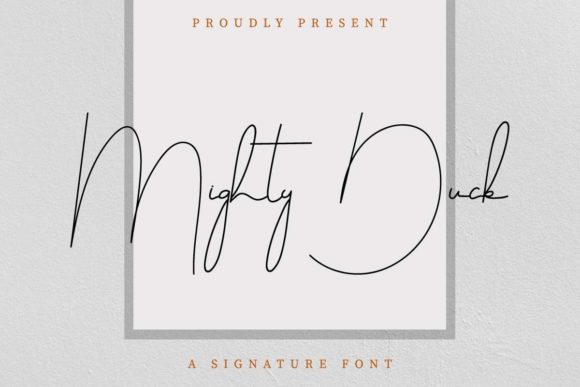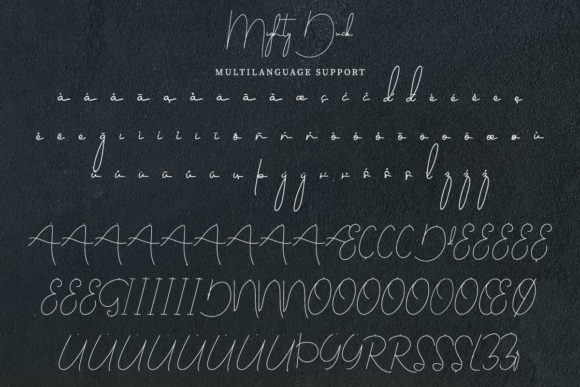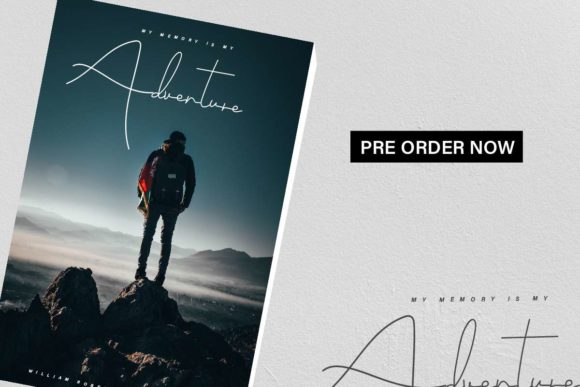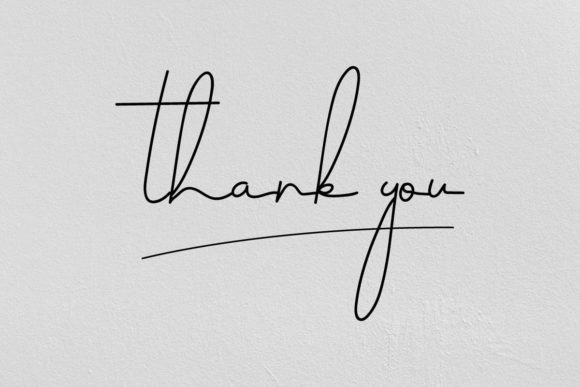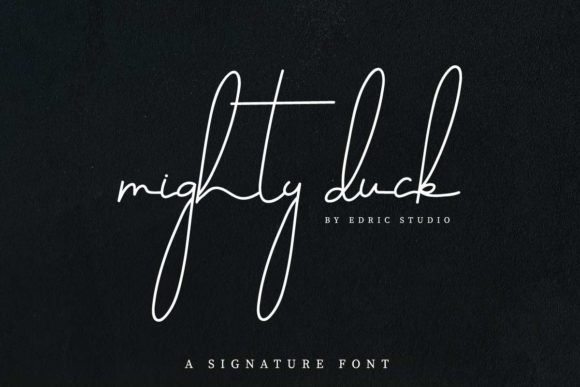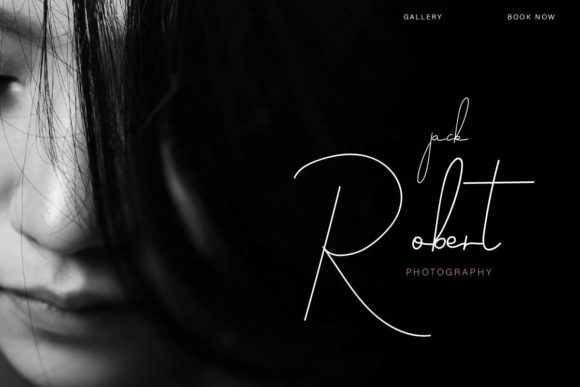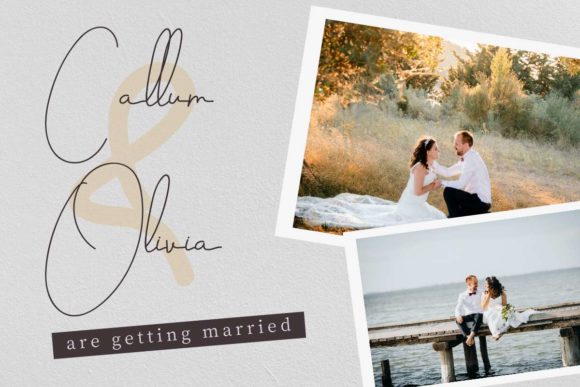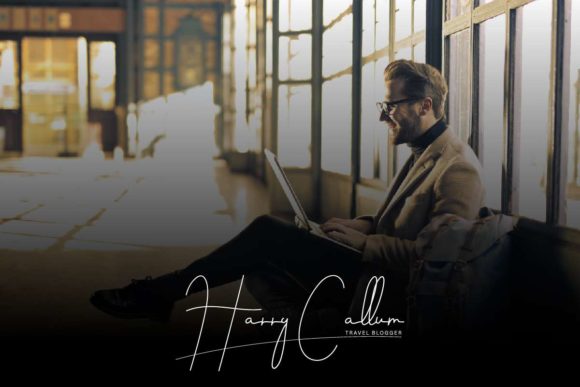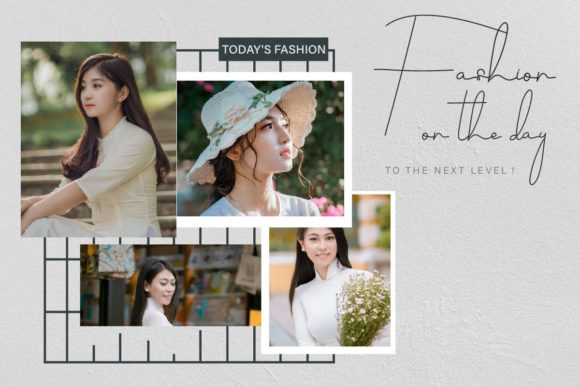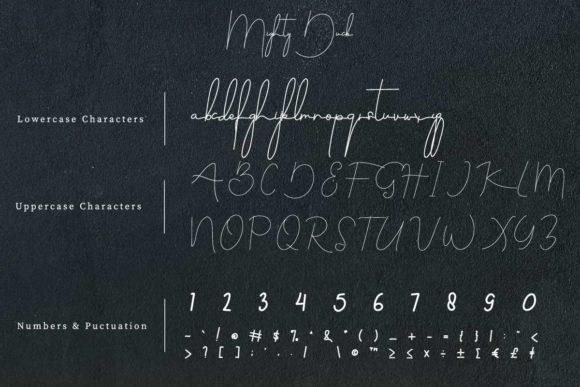
Mighty Duck Font
About Mighty Duck Font
Mighty Duck feels equally charming and elegant. It looks stunning on wedding invitations, thank you cards, quotes, greeting cards, logos, business cards and every other design which needs a handwritten touch.